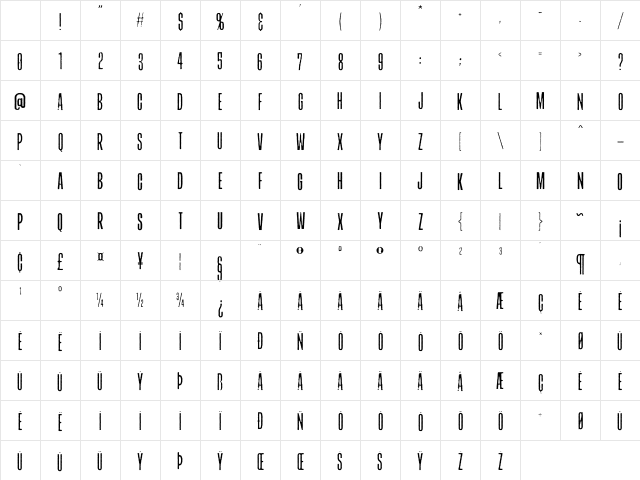
Complete TCHeadlinerRough-Cond Regular glyph index. Displaying only characters natively supported by TCHeadlinerRough-Cond Regular font.
TCHeadlinerRough-Cond embraces imperfection - its rough, textured character adds raw authenticity to designs that want to feel lived-in and unconventional.
Pro Tip: Use TCHeadlinerRough-Cond at larger sizes where the texture and irregularity of each letterform can be clearly seen - it loses its character at small sizes.